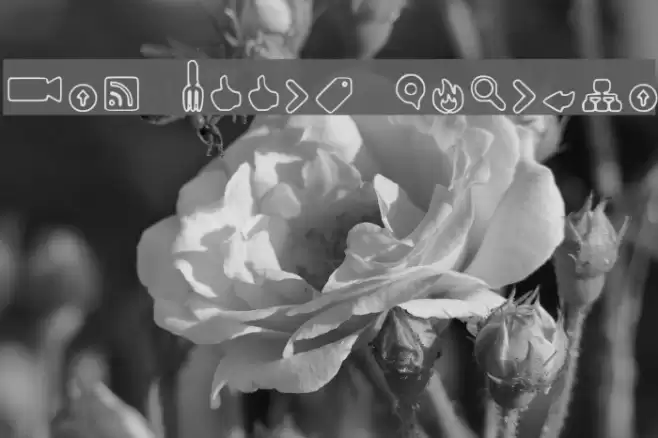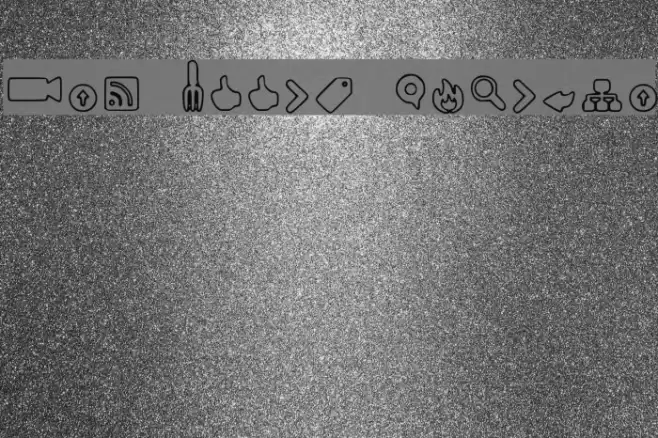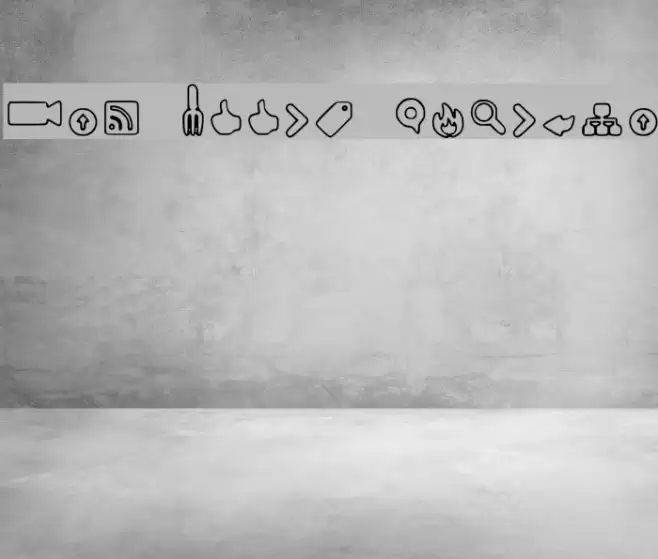
Web Tools Outline Font
Web Tools Outline Description
A collection of outlined web and interface icons with consistent stroke width, rounded corners, and simple geometric shapes, providing clear and recognizable symbols for various digital actions and objects.
Outlined icon set with uniform stroke and rounded shapes from Uncategorized fonts.
- Proposed Projects: Web and mobile app interfaces, UI/UX design, dashboards, toolbars, infographics, and digital product mockups.
- Overall Style: Modern, Minimalist
- Use Case: Icons for interfaces, navigation, and digital tools.